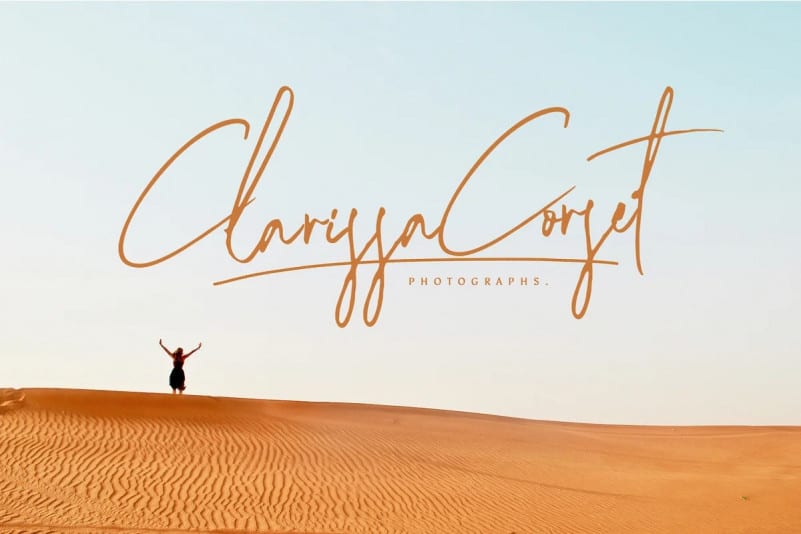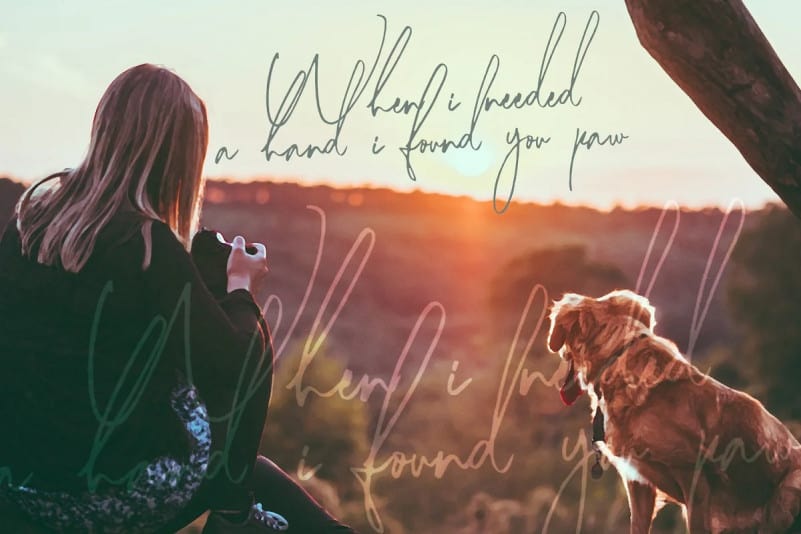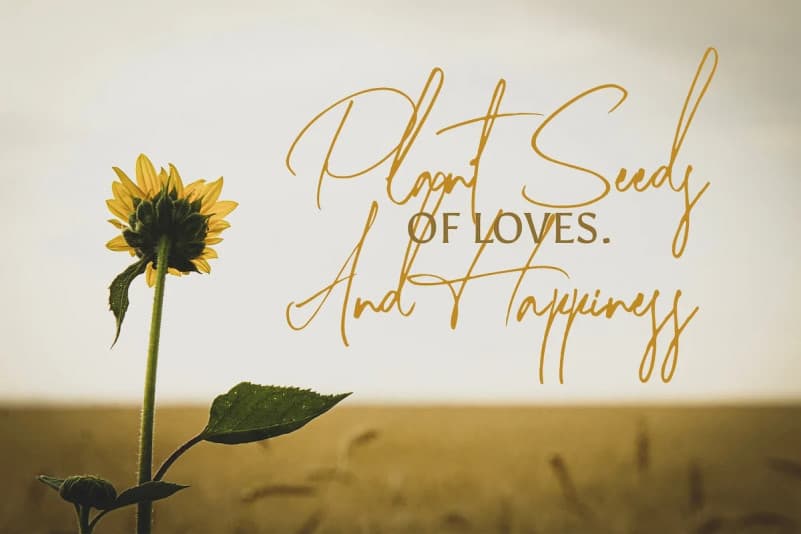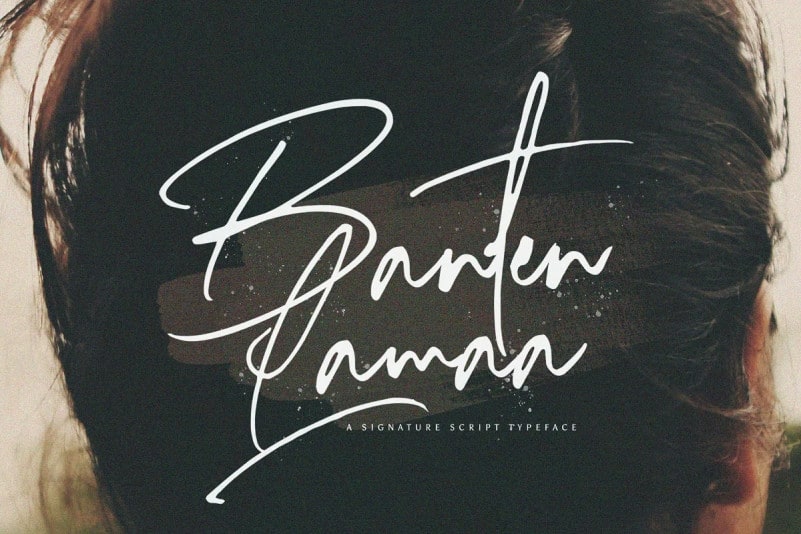
Banten Lama Handwritten Font is a modern signature font created by StringLabs with a touch of handwriting style. Its elegant and well rounded letters make this font a masterpiece. Fall in love with its distinct style and use it to create spectacular designs!